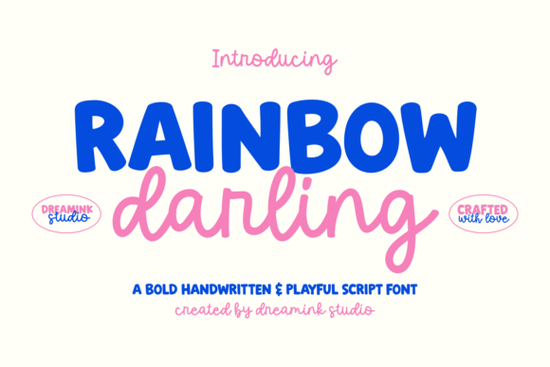
If you’ve ever struggled to make a bold headline work with a delicate script in the same design, the Rainbow Darling Duo Font offers a ready-made solution. This pair combines a chunky sans-serif called “Rainbow” with a flowing monolinear script called “darling.” It’s designed so you don’t have to hunt for matching typefaces everything already belongs together.
What makes this font duo different from using two separate fonts?
When you grab any bold font and any script font, they often clash because of different x-heights, stroke thicknesses, or overall mood. With Rainbow Darling Duo Font, the thick, rounded letterforms of “Rainbow” are intentionally built to balance the hand-drawn elegance of “darling.” The script has a consistent monolinear weight that echoes the solid feel of the sans-serif, creating a harmonious contrast rather than a fight for attention. That means less time tweaking and more time designing.
For designers working on bold kids font projects or rainbow memories font layouts, this duo brings a ready-made personality that feels both urban and sincere. It’s especially handy when you need a headline that stands out without losing the softness of handwritten detail.
How can print-on-demand sellers use Rainbow Darling?
Print-on-demand sellers often need type that works on t-shirts, hoodies, tote bags, and mugs. The “Rainbow” component is massive and chunky, so it reads well even at small print sizes or from a distance. Paired with the “darling” script, you can create apparel designs that feel energetic and personal think youth-oriented brands or motivational quotes.
For product packaging, the duo gives a handmade touch without looking amateurish. Use the bold sans for product names and the script for taglines or ingredients. The contrast draws the eye naturally. If you also work with doodle line font display fonts, you’ll notice how well this duo complements simple line art or hand-drawn elements.
Is this duo suitable for social media graphics?
Absolutely. Social media feeds are crowded, and you need type that captures attention fast. The “Rainbow” sans-serif radiates urban energy perfect for Instagram stories, quote cards, or YouTube thumbnails. The “darling” script adds a personal, sincere vibe that works well for short messages like “you got this” or “good vibes only.”
Because both fonts come in the same file, you can quickly layer them without opening multiple downloads. For creators who also enjoy dirty strong font display fonts, this duo provides a cleaner, more polished alternative for professional brand content.
What about event stationery and boutique branding?
Boutique events like weddings, birthday parties, or pop-up shops often need a balance of formal and playful. The “darling” script brings the rhythmic, hand-drawn elegance that makes invitations feel personal. Meanwhile, the “Rainbow” sans can anchor the main event name or date with a sturdy, trustworthy look.
If you design for small businesses that want to feel both professional and approachable, this duo is a solid choice. It also pairs nicely with other display options like trup tomp font display fonts when you need an extra decorative accent for headers or dividers.
A practical next step for using the duo
When you first open the Rainbow and darling fonts, try them at different sizes. The bold sans shines as a large title, while the script works best for subheadings or short lines. Adjust the letter spacing on the script slightly tighter for a connected look, or loosen it for a more airy feel. Test the duo on a dark background too the thick letters of “Rainbow” hold up well, and the script remains readable when given enough contrast.
- For apparel: Use “Rainbow” for the main slogan, “darling” for a small decorative word below.
- For packaging: Set the product name in bold, and use the script for a handwritten “handmade” label.
- For social media: Keep quotes short one bold word + a script phrase so the contrast stays clear.
- For invitations: Use “Rainbow” for the event title, “darling” for names or dates.
Whether you’re a designer exploring new display pairs or a print-on-demand seller looking for consistent branding, Rainbow Darling Duo Font saves you the headache of mixing mismatched typefaces. Download it, test it on your next project, and see how the strength of the bold meets the warmth of the script.